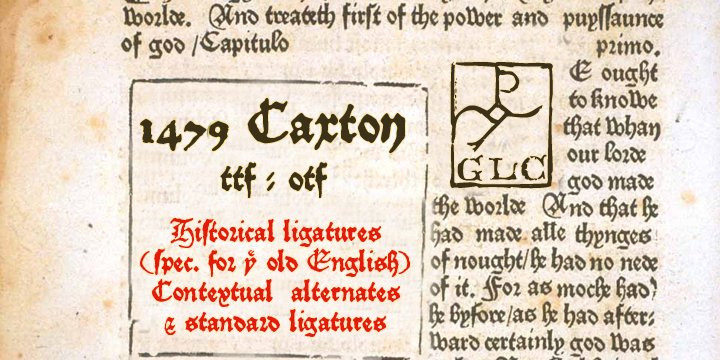
This family was inspired by the two fonts used by the famous William Caxton in Westminster (UK) in the late 1400s. There is only one (Normal) style. We have added the accented characters and others not in use in the early time of printing, but the ligatures and the few abbreviations for the Old English language and Latin were present in the original fonts.
The original cap height is about five to seven millimeters. Decorated letters like 1495 Lombardes, 1512 Initials, 1550 Arabesques, 1565 Venetian, and 1584 Rinceau can be used in complement with this font without anachronism.